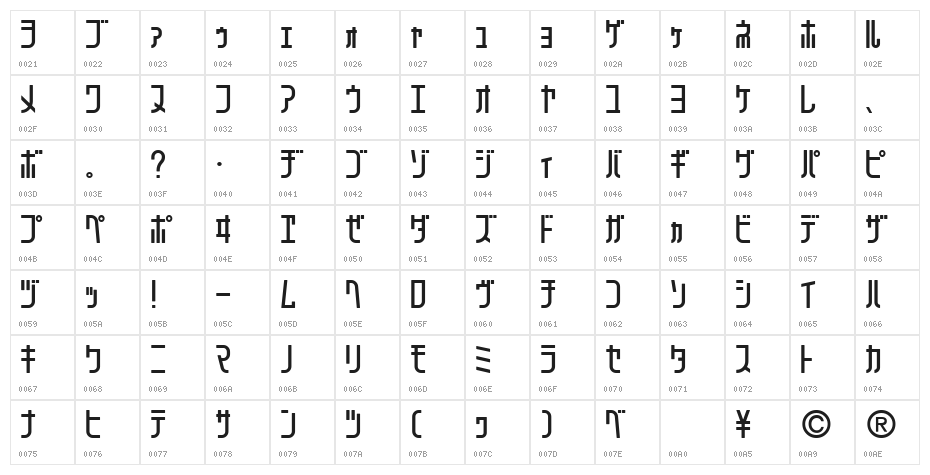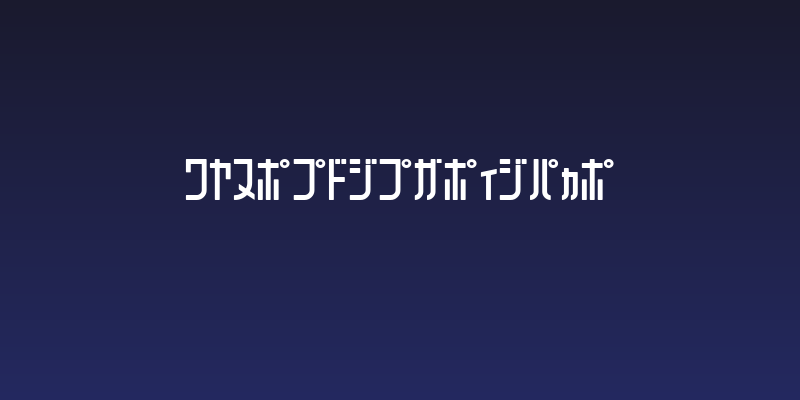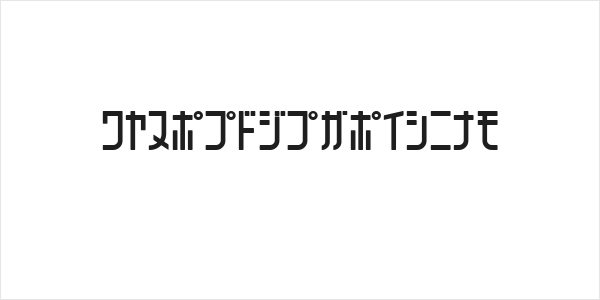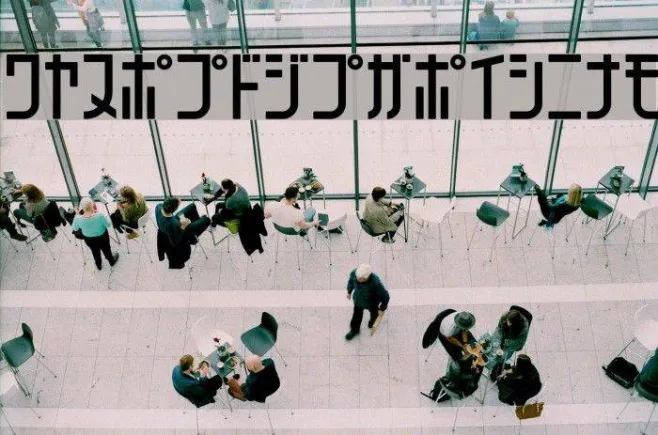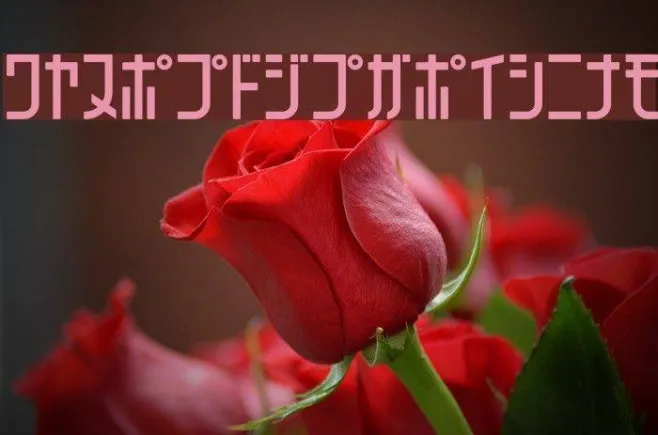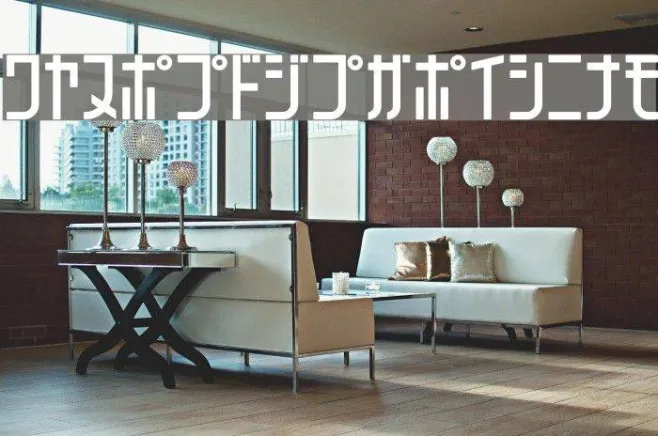
071MKSDKTMedium Font
071MKSDKTMedium Description
This font features a bold and geometric style with a modern aesthetic. The characters are uniformly structured, showcasing a consistent height and width that gives a clean and organized appearance. The strokes are thick, providing a strong visual impact, while the overall design maintains a sense of balance and symmetry. The font's angular shapes and straight lines contribute to its contemporary look, making it suitable for various design applications. Its simplicity and clarity ensure readability, even at smaller sizes, while the boldness adds emphasis and draws attention.